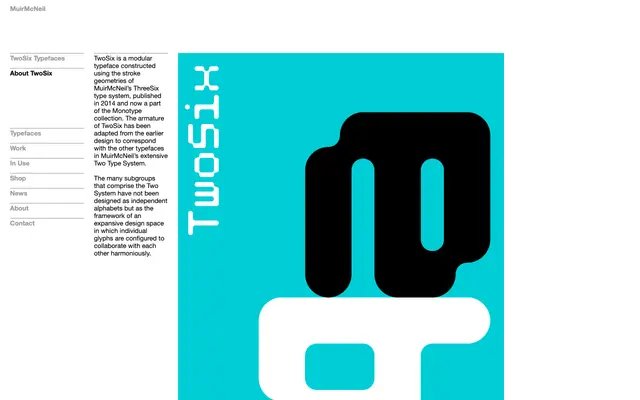
TwoSix
A modular typeface constructed from the stroke geometries of MuirMcNeil's ThreeSix system, adapted to sit within the broader Two Type System.
TwoSix draws its stroke geometry from ThreeSix, MuirMcNeil's earlier modular type system published in 2014 and now part of the Monotype collection. Its armature has been reworked to integrate harmoniously with the other typefaces in the Two Type System, a large family of related modular designs. Individual glyphs are configured not as standalone alphabets but as components of a shared design framework, intended to collaborate across subgroups.
TwoSix is a modular typeface built from geometric stroke units derived from the ThreeSix system, making it a display-oriented modular/geometric design rather than a conventional text face.